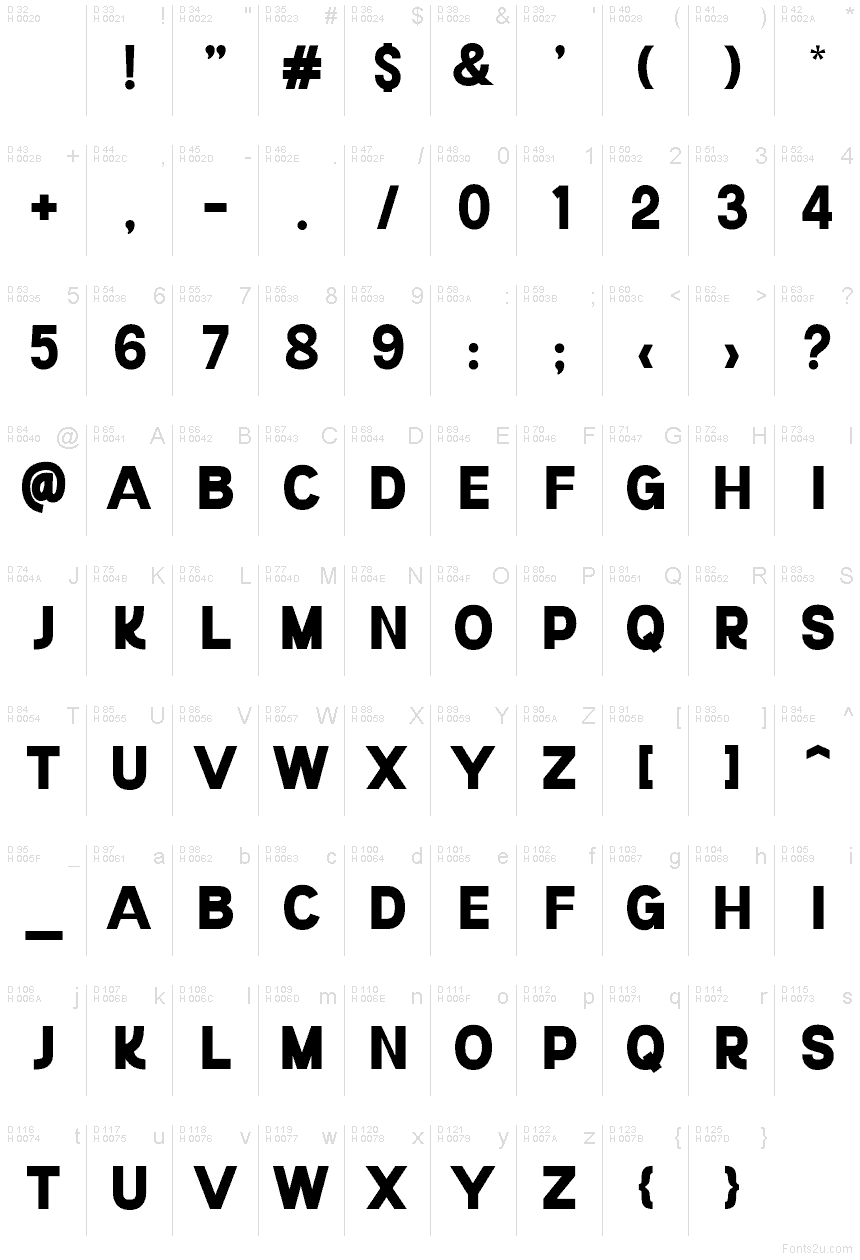
World
World font by Setyo Wati is a bold geometric sans-serif typeface with impactful and modernist influence. Its assertive appearance, strong presence, wide body, and the designed cut curves make it versatile for branding. The imposing letterforms are guaranteed to attract the audience’s attention by both directing their focus towards your design and communicating authority.
Use this free font for headlines, posters, entertainment covers or artwork, social media posts or banners. Additional use cases include TV content end card typography, neon or LED signs & letters logotypes (especially technology-related ones), labels and others.